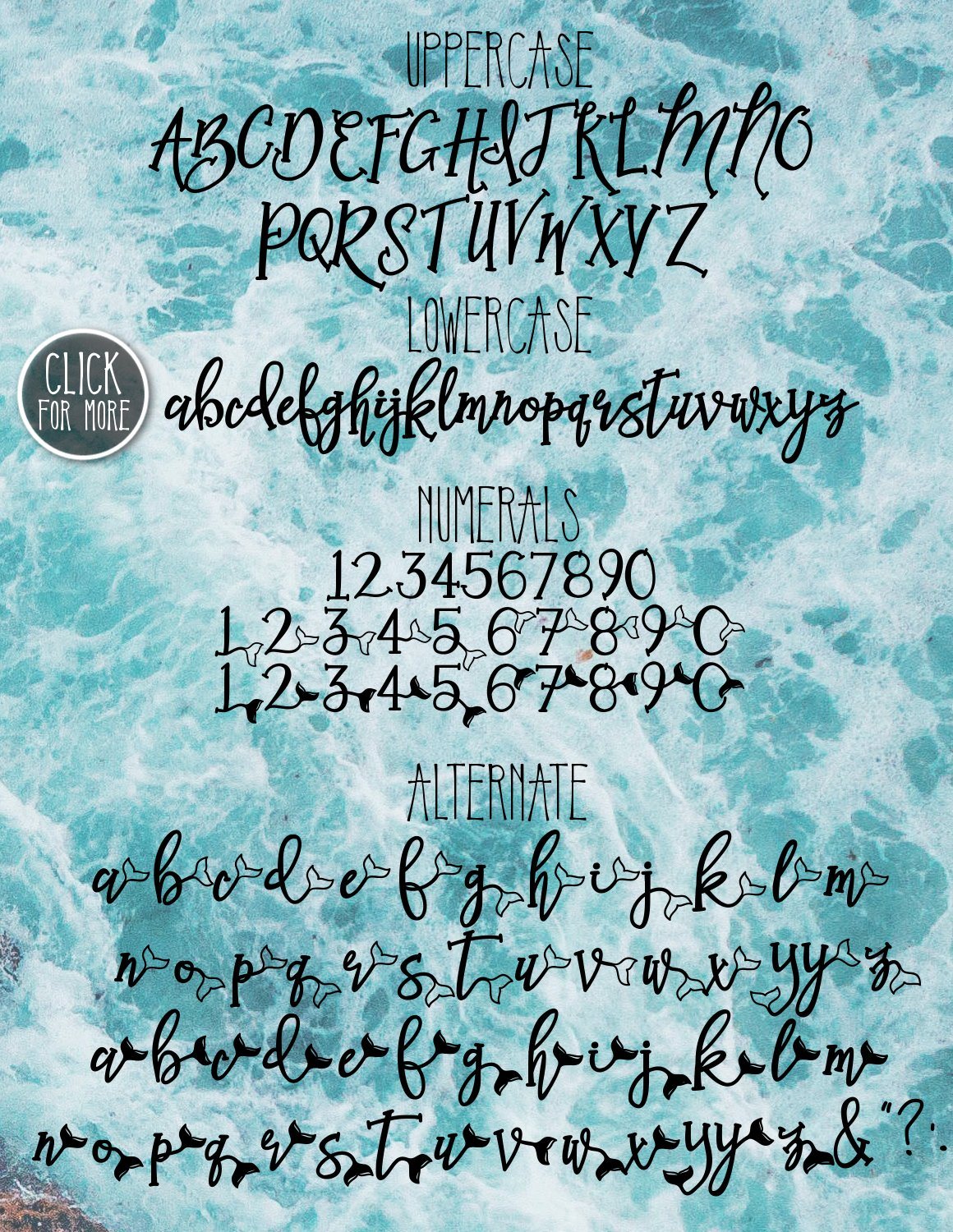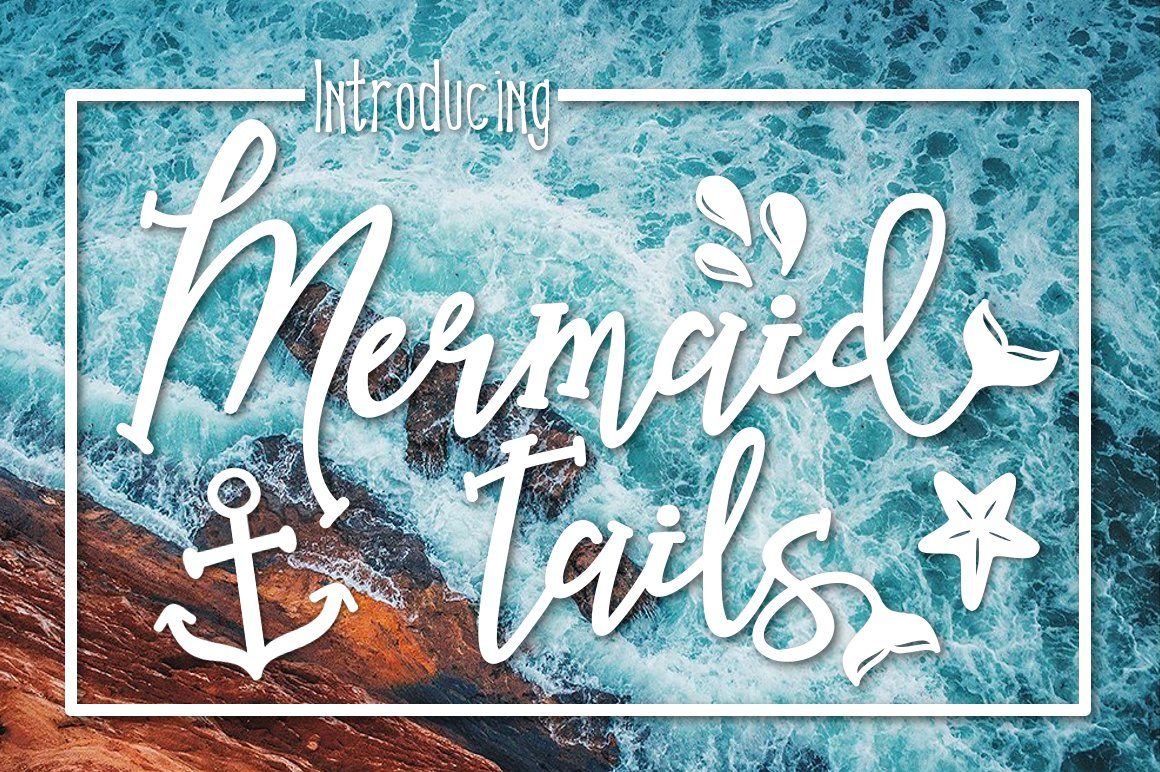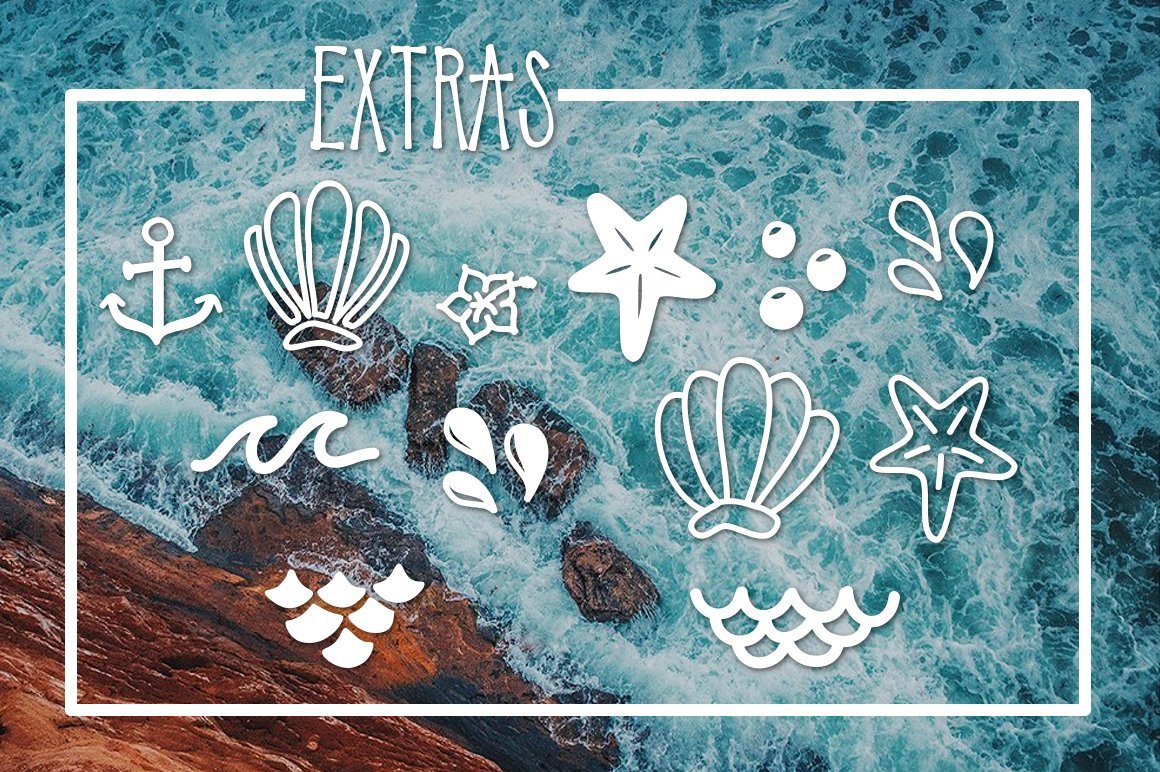
HomeScript FontsMermaid Tails Script Fonts Mermaid Tails FacebookTwitterPinterestWhatsApp 1 of 3 ... ... ... About Mermaid Tails is a fun script font with added tail characters and doodles! DOWNLOAD NOW People also explored Mollani Hello Christmas Font Fallen Jones Font Elastrick Font Cheria Font Black Coffee Mug Mockup with Magenta Tulip Garnacho Font Laser Monogram Font Neogeo Font 59 0 TagsMermaid Tails Previous articleSalty KissesNext articleMessy Life LEAVE A REPLY Cancel reply Comment: Please enter your comment! Name:* Please enter your name here Email:* You have entered an incorrect email address! Please enter your email address here Website: Save my name, email, and website in this browser for the next time I comment. Personal Use Free Hagia Signal Personal Use Free Read more about this font Bruttney Personal Use Free Read more about this font Rocketto Personal Use Free Read more about this font Mandara Personal Use Free Read more about this font BLOG To increase your work productivity, choose the most readable fonts. In today's fast-paced work environment, where digital communication and information consumption are integral to our daily routines, the choice of fonts can significantly impact... The 10 Best Handwriting Fonts to Add Personality to Your Designs Using Fonts in Digital Marketing: Tips to Strengthen Your Brand Identity Where to Buy American Fonts Online in 2024